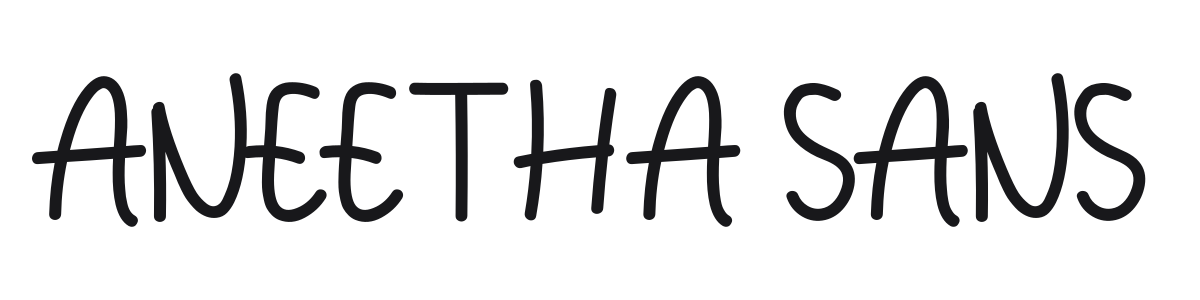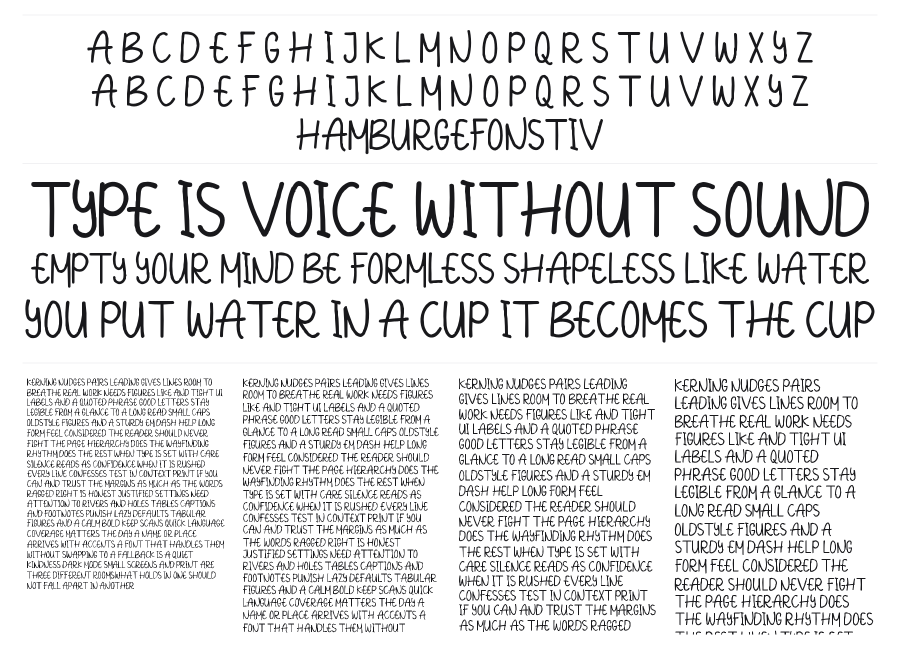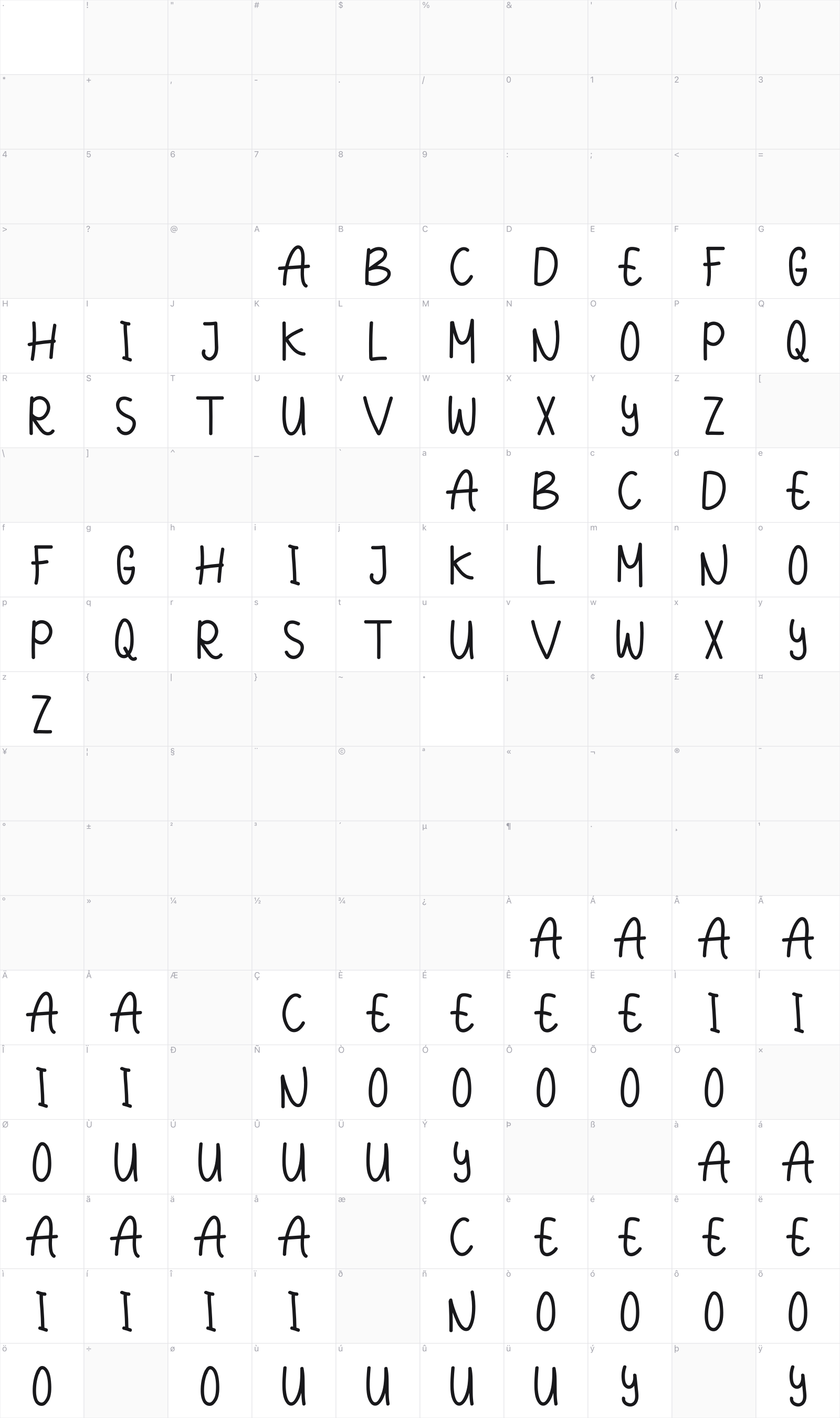
Aneetha Sans
Aneetha Sans is a casual handwritten sans-serif that captures the loose charm of marker lettering. Its tall, narrow characters have a natural wobble and rounded terminals that feel genuine rather than mechanical. Good for branding, packaging, and any design that needs warmth without formality.